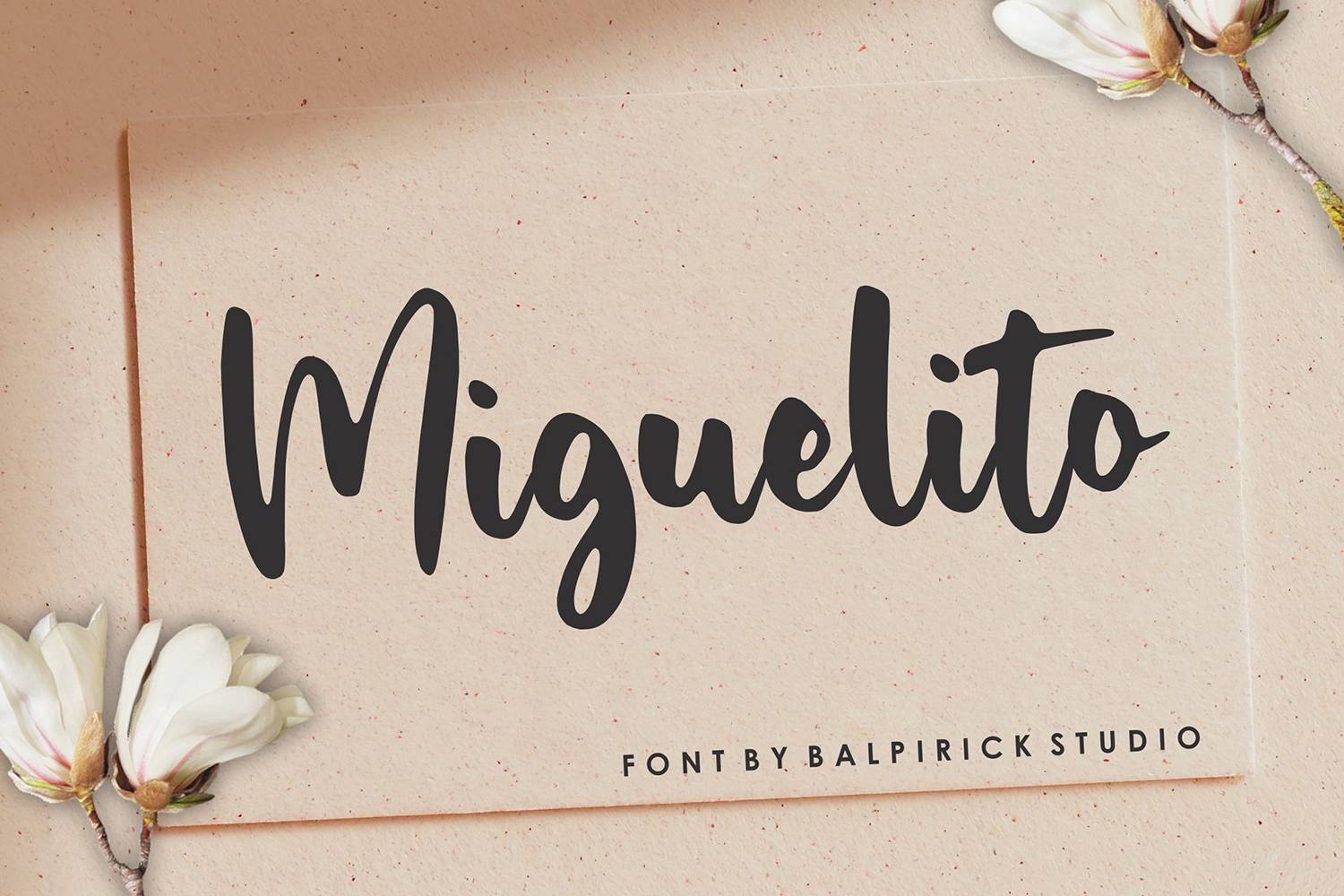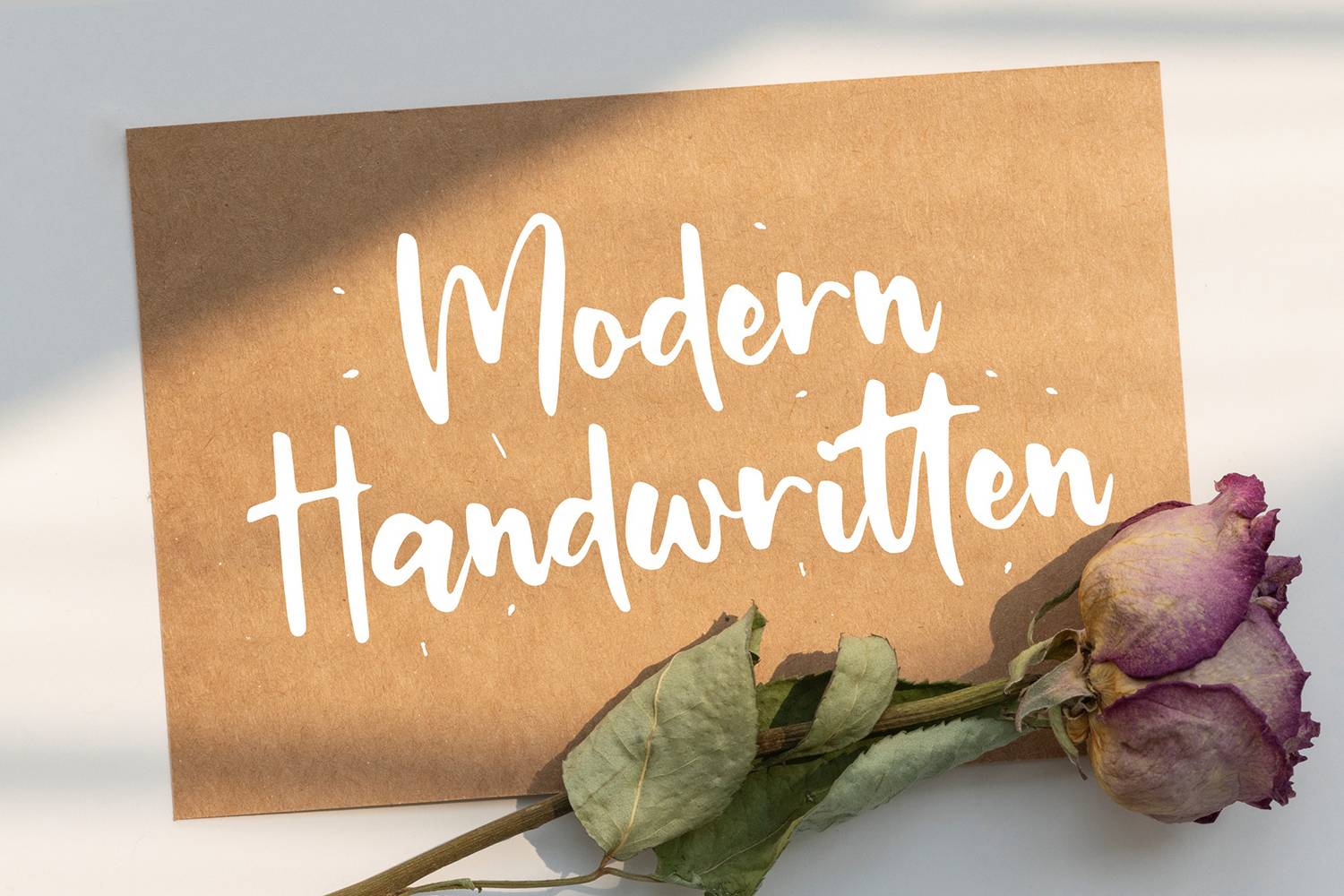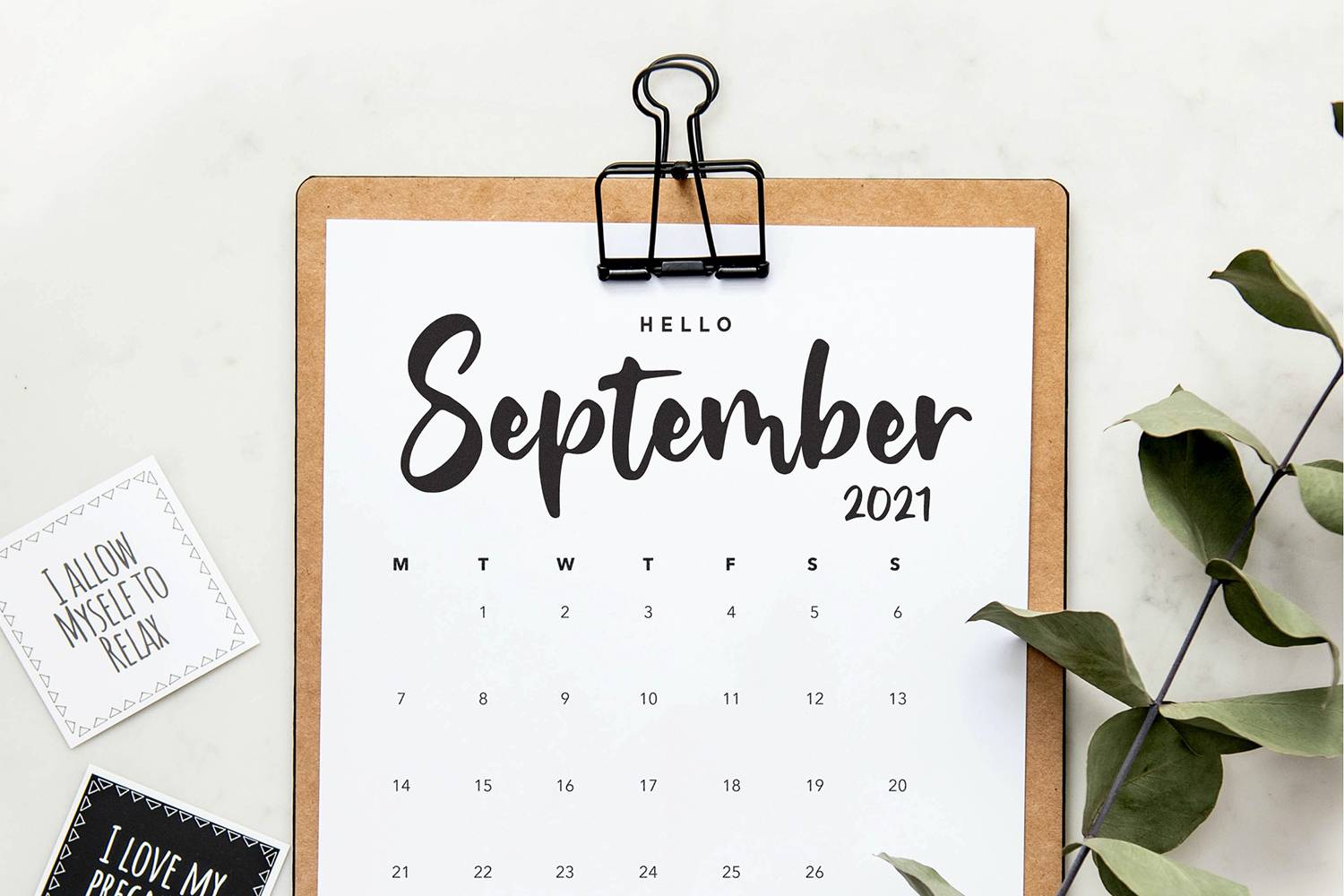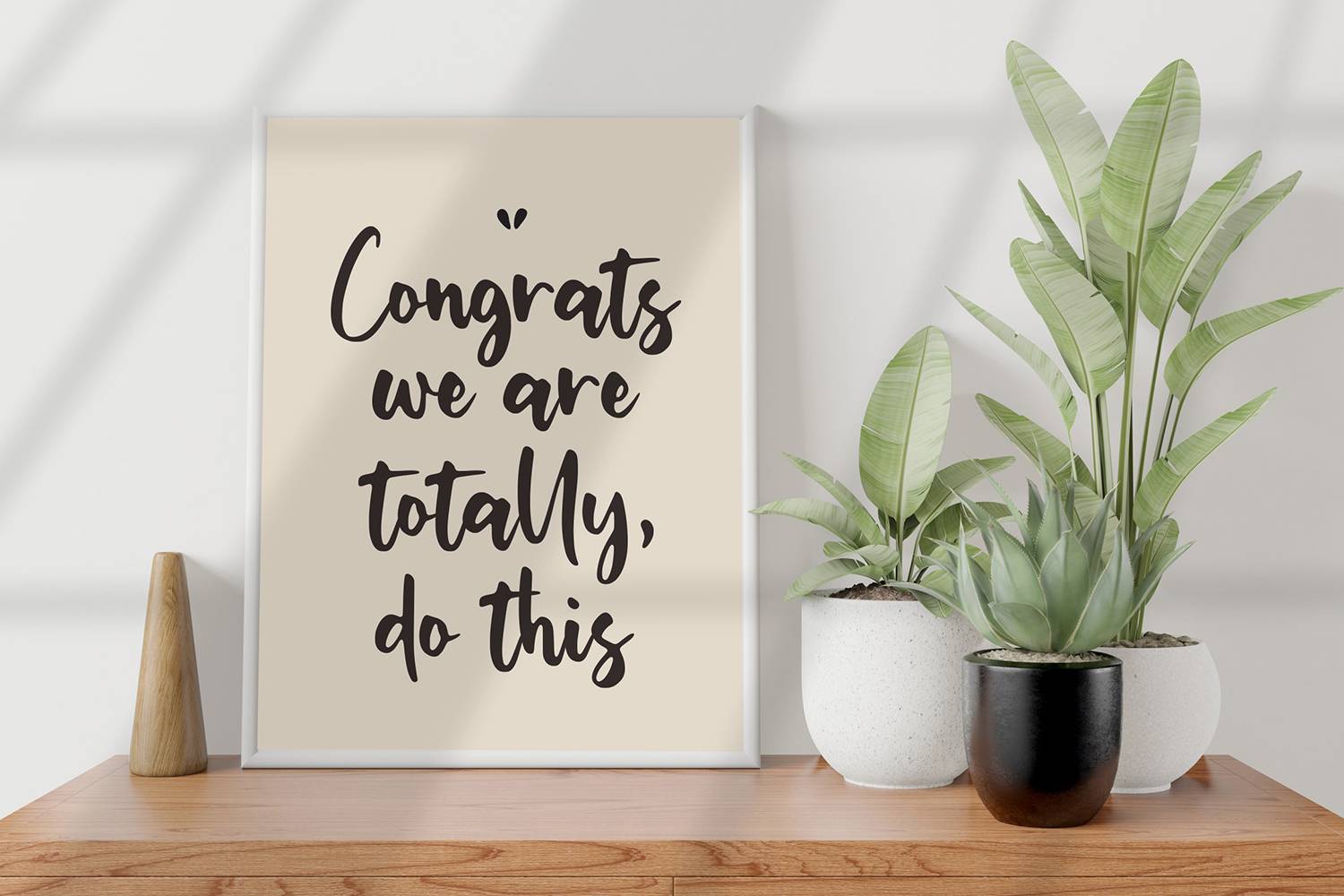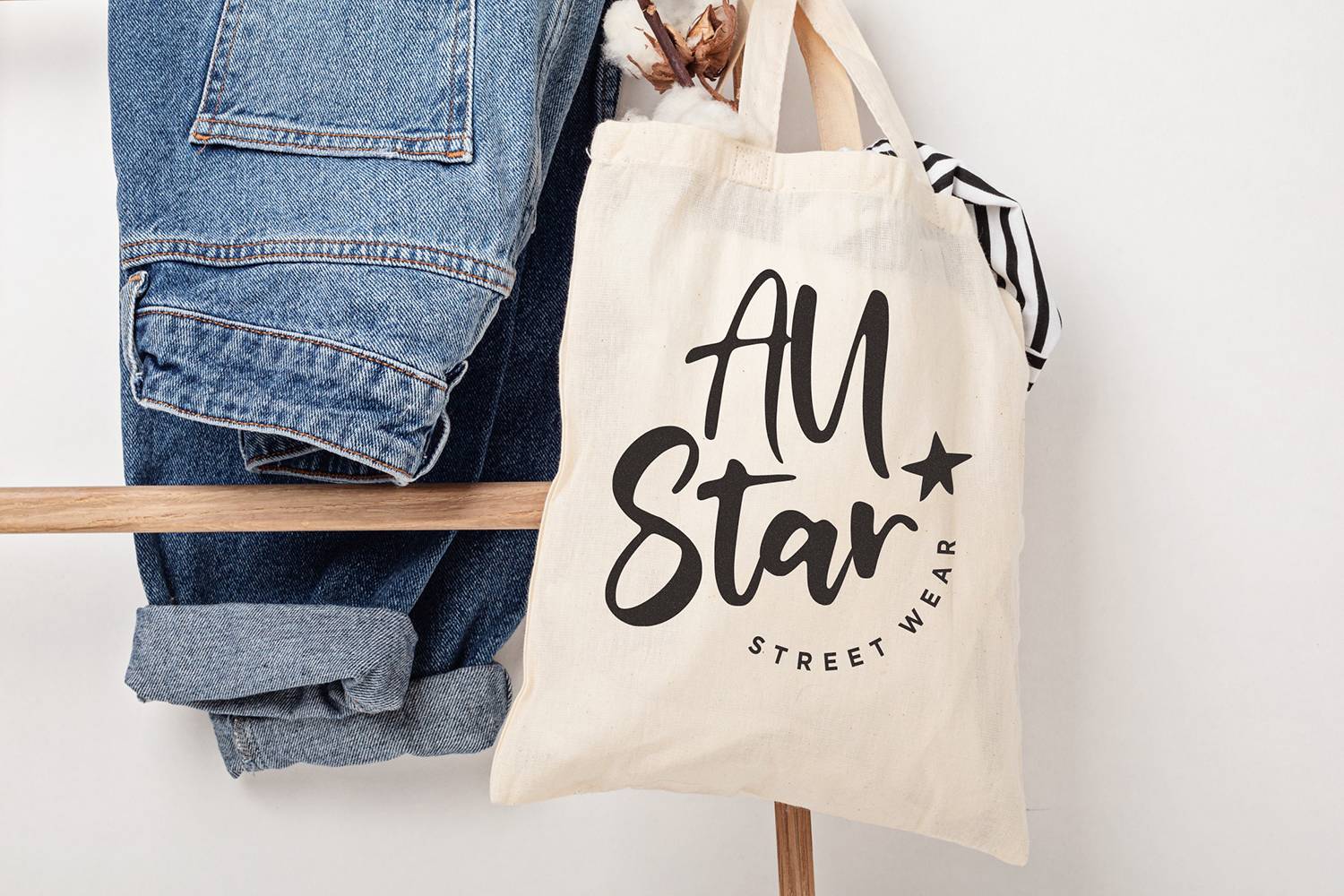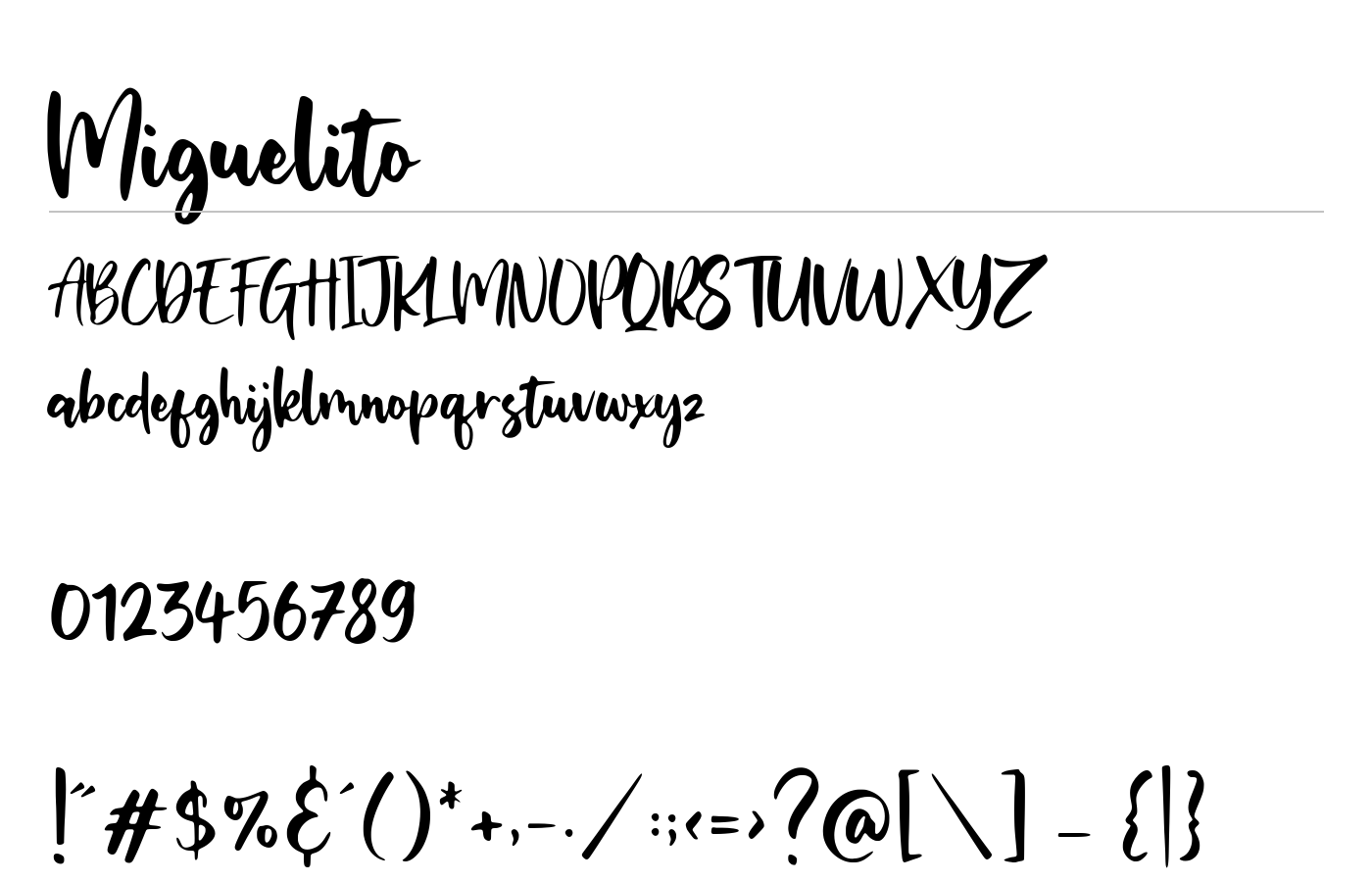
Miguelito is a lively, handwritten script font with a casual and playful feel, featuring bold strokes and smooth, rounded letterforms that create a warm, friendly appearance. Its irregular, brush-style characters work well for creative designs, making it ideal for branding, invitations, and social media where a personal, approachable touch is desired. This font’s energetic style shines in headlines and display uses, adding charm and expressiveness to any project.
Miguelito Font